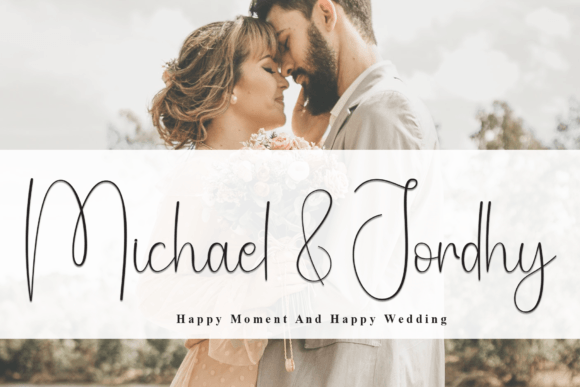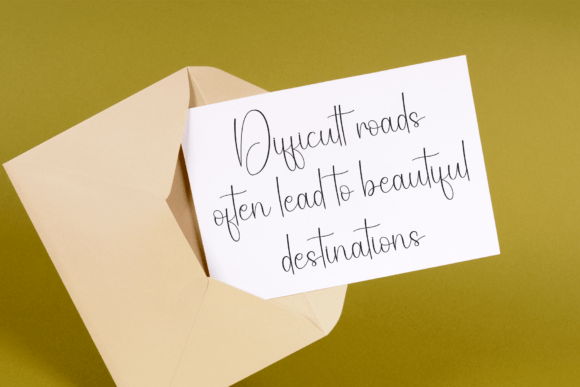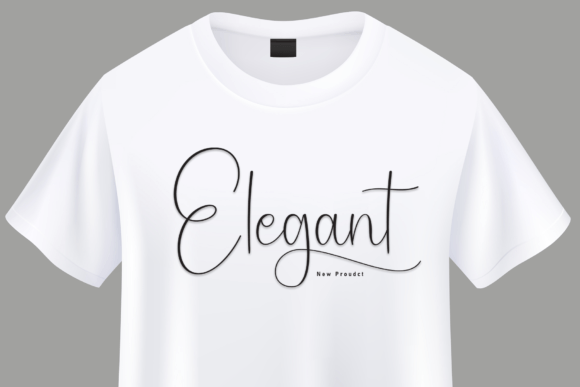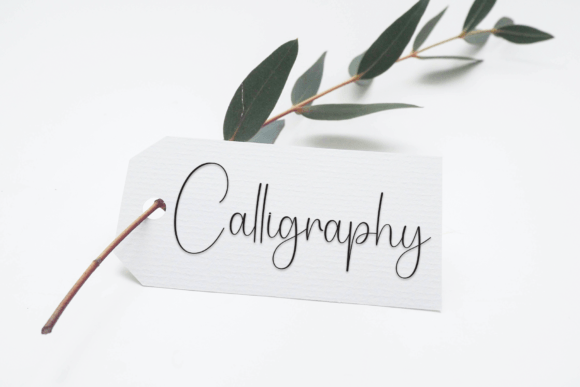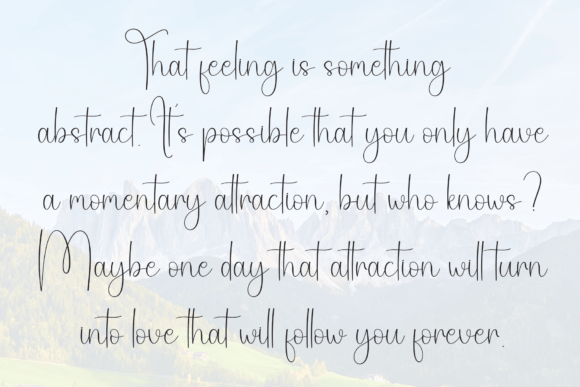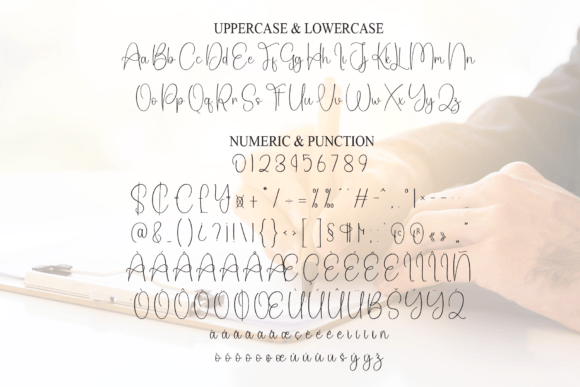
Introducing Basthian Signature Font: Elevate Your Designs with Elegance
In the world of typography, a well-crafted font can make all the difference in the success of a design project. For designers and crafters seeking to add a touch of sophistication and personality to their work, Basthian Signature Font is an exceptional choice. This stunning handwritten font boasts a stylish and elegant look, perfect for creating personal signatures, invitations, logos, and more.
The Characteristics of Basthian Signature Font
Basthian Signature Font is distinguished by its smooth, flowing lines that exude a sense of refinement and luxury. Its modern yet timeless appeal ensures that it can be seamlessly integrated into a wide range of design projects, from traditional wedding invitations to contemporary branding and advertising materials. The font’s unique character lies in its ability to convey a sense of warmth and approachability, making it an ideal choice for designers looking to create a lasting impression.
Perfect for Personal and Professional Designs
One of the key benefits of Basthian Signature Font is its versatility. Whether you’re working on a personal project or a professional assignment, this font is sure to impress. Here are just a few examples of how you can use Basthian Signature Font to elevate your designs:
- Personal Signatures: Add a touch of elegance to your email signatures, business cards, or letterheads with Basthian Signature Font.
- Invitations: Create beautiful wedding invitations, birthday party invites, or baby shower announcements that set the tone for a special occasion.
- Logos: Use Basthian Signature Font to craft a unique and memorable logo for your business or brand.
- Stationery: Design stunning stationery, including notebooks, journals, or greeting cards, that showcase your creativity and attention to detail.
Why Choose Basthian Signature Font?
With so many fonts available, why should you choose Basthian Signature Font for your next project? Here are just a few compelling reasons:
- Unique and Exclusive: Basthian Signature Font offers a distinctive look that sets it apart from more common fonts.
- Elegant and Sophisticated: The font’s smooth lines and flowing curves create a sense of luxury and refinement.
- Highly Versatile: Basthian Signature Font can be used in a wide range of design projects, from personal to professional.
- Easy to Read: The font’s clear and legible design ensures that your message is communicated effectively.
Tips for Using Basthian Signature Font
To get the most out of Basthian Signature Font, here are a few tips to keep in mind:
- Use it Sparingly: While Basthian Signature Font is beautiful, it’s best used in moderation. Use it as a headline or accent font to add emphasis and interest to your design.
- Experiment with Colors: The font looks stunning in a range of colors, from classic black and white to bold brights and metallics.
- Pair it with Other Fonts: Basthian Signature Font pairs beautifully with clean sans-serif fonts or elegant serifs. Experiment with different combinations to find the perfect look for your project.
Basthian Signature Font is a truly exceptional handwritten font that offers a unique blend of style, elegance, and sophistication. Whether you’re a designer, crafter, or DIY enthusiast, this font is sure to become a go-to choice for a wide range of design projects. With its smooth lines, flowing curves, and timeless appeal, Basthian Signature Font is the perfect way to add a touch of class and personality to your work.